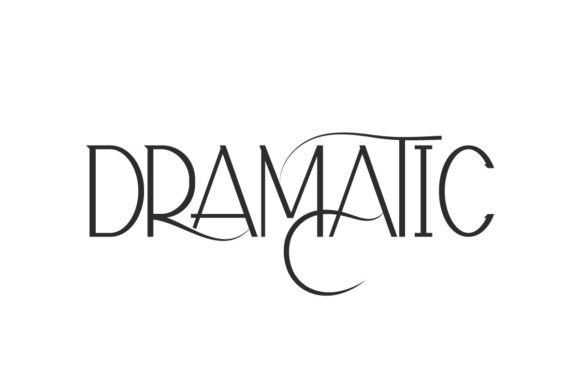
Introducing Dramatic Font, the perfect choice for makeup stores and beauty enthusiasts! Created by NihStudio, this stylish and modern slab serif font is here to elevate your design projects and captivate your audience. With its sleek characters and slim appearance, Dramatic Font adds a touch of elegance and sophistication to any creative endeavor.
Are you in need of stunning typography to enhance your fashion magazine titles? Look no further! Dramatic Font is the ultimate solution to make your magazine stand out on the shelves and grab the attention of fashion-forward readers. Its eye-catching design will leave a lasting impression and create a sense of allure and allure.
If you are a boutique owner looking to establish a strong brand identity, Dramatic Font is your secret weapon. Its versatility allows it to flawlessly complement your boutique's branding, giving it a touch of class and uniqueness. With this font, your promotional materials will exude professionalism and creativity, setting you apart from the competition.
But that's not all! Dramatic Font is PUA encoded, granting you easy access to all the glyphs and swashes. This means you can effortlessly experiment with different letterforms and create stunning custom designs. Let your imagination run wild and watch as Dramatic Font brings your creative visions to life.
Imagine the impact this font will have on your website, social media posts, and advertisements. It will captivate your audience, evoke emotions, and leave a lasting impression. Don't settle for ordinary fonts when you can have Dramatic Font and make a bold statement.
So, whether you're a makeup store owner, a fashion magazine publisher, or a boutique owner, Dramatic Font is your go-to choice. Elevate your designs, mesmerize your audience, and create a brand that stands out from the crowd. Download Dramatic Font today and unlock endless possibilities for your creative endeavors.